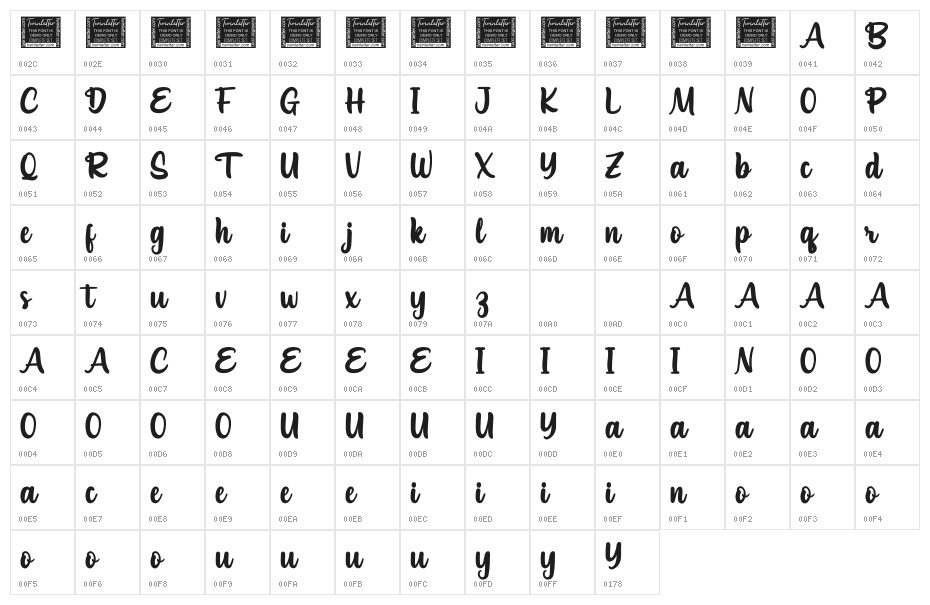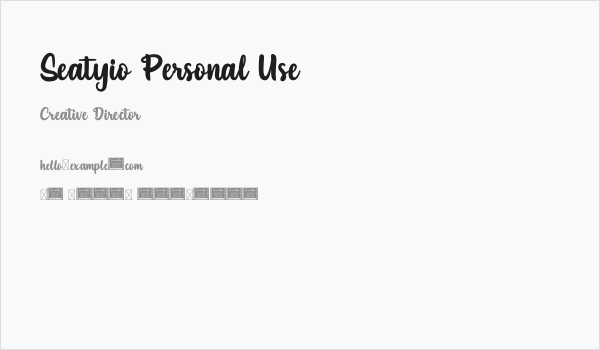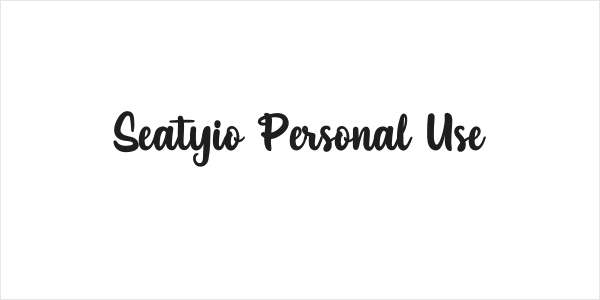
Seatyio Personal Use Font
Seatyio Personal Use Description
This font features a bold, flowing script style with a modern and playful aesthetic. The uppercase letters are elegantly curved, with a slight slant that adds a dynamic feel. The lowercase letters maintain a consistent flow, with some characters featuring distinctive loops and swashes that enhance its decorative nature. The numbers and special characters are designed to match the overall style, ensuring a cohesive look across all text. This font is ideal for projects that require a personal touch, such as invitations, greeting cards, or branding materials.
| Proposed Projects | Ideal for invitations, greeting cards, branding materials, and decorative signage. |